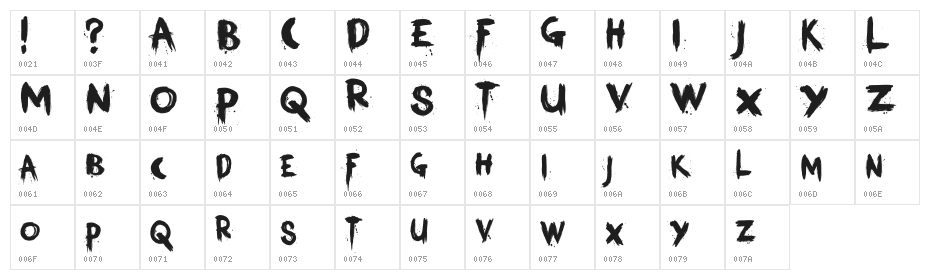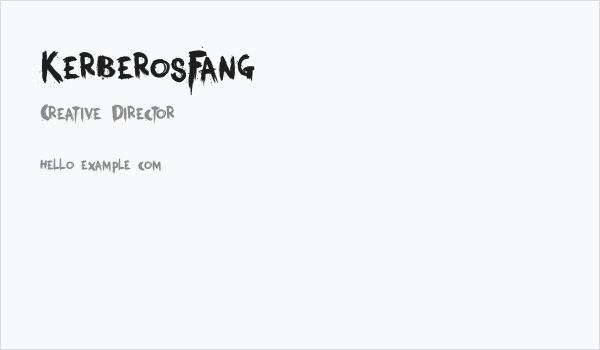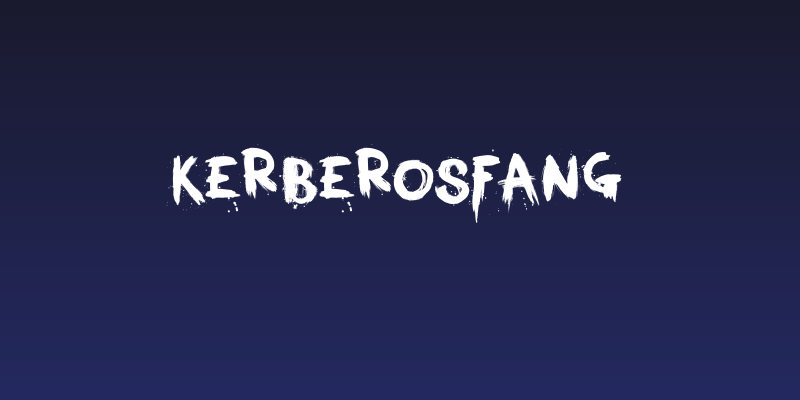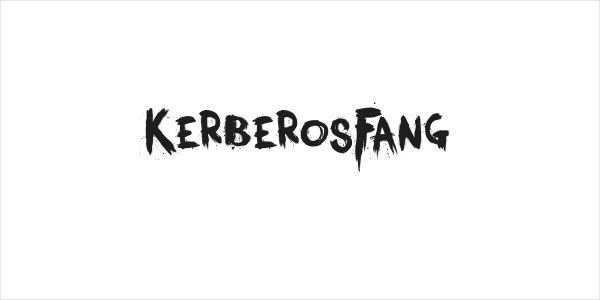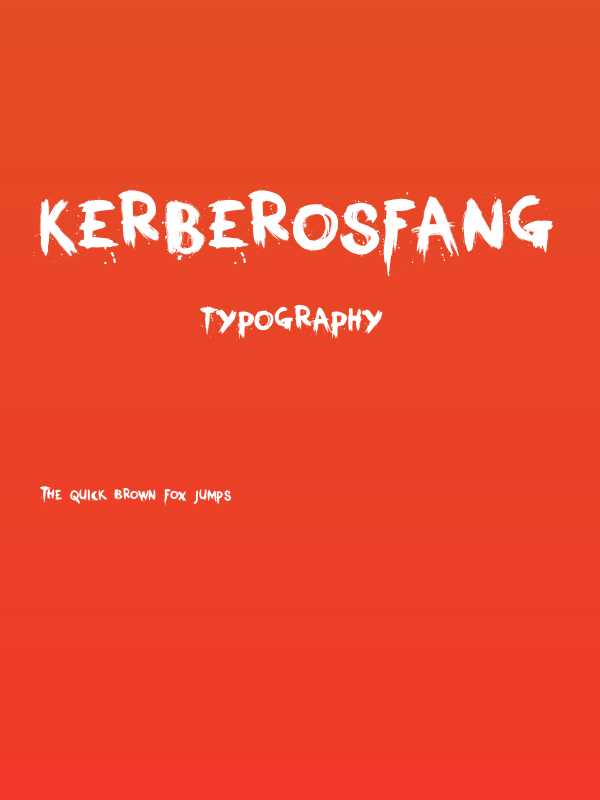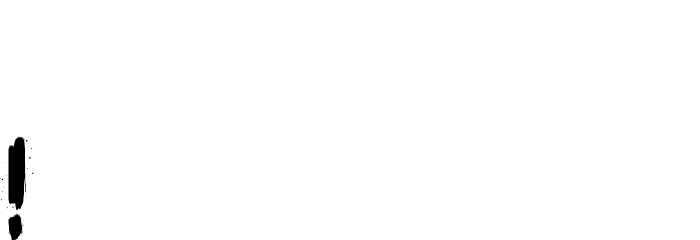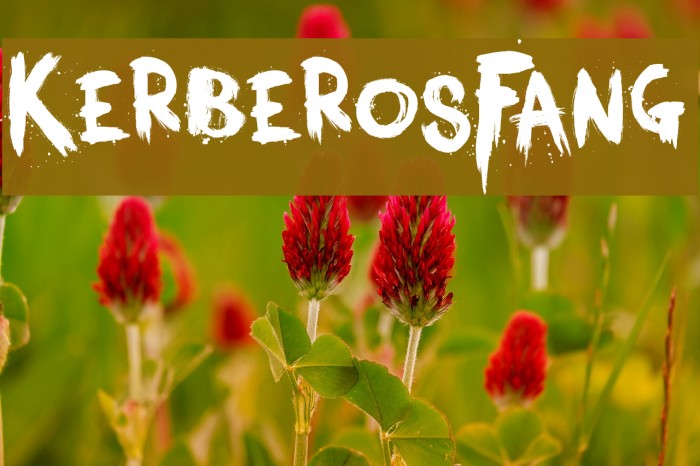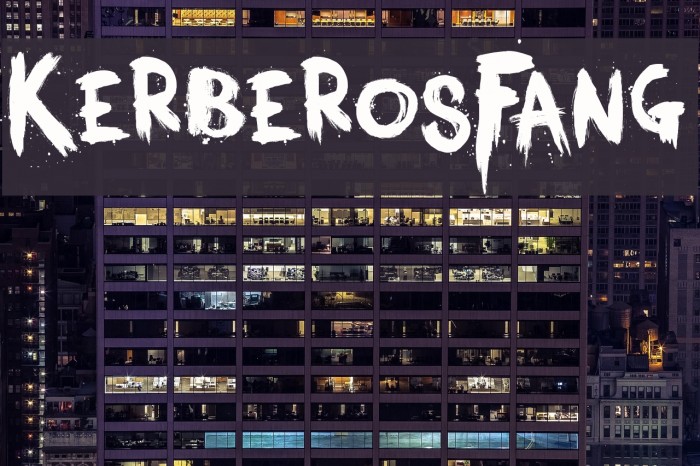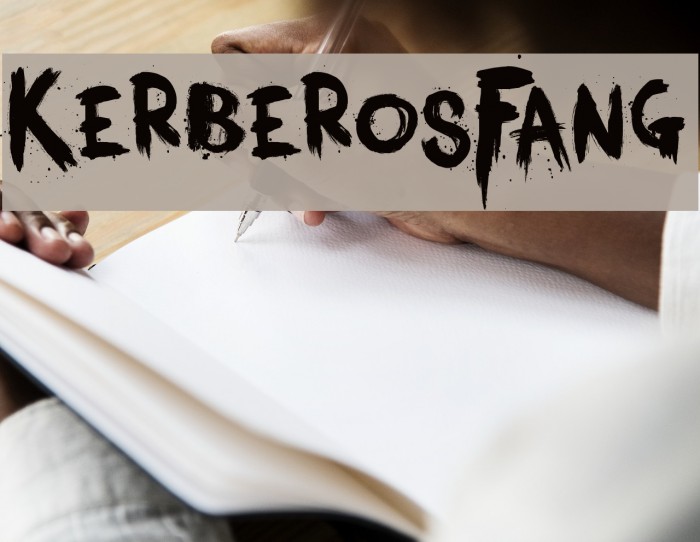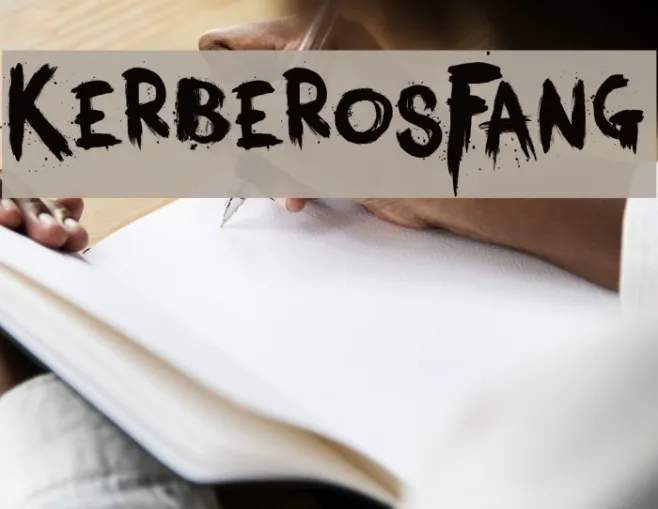
KerberosFang Font
KerberosFang Description
This font features a bold, brush-like appearance with a distressed and grungy texture. The characters have an irregular, hand-painted style, giving them a raw and edgy look. The strokes are thick and uneven, with splatters and rough edges that add to its rugged aesthetic. The uppercase and lowercase letters maintain a consistent style, creating a cohesive yet dynamic visual impact. This font is ideal for projects that require a strong, rebellious, or artistic vibe, making it perfect for posters, album covers, and other creative designs.
| Proposed Projects | Ideal for posters, album covers, street art designs, and edgy branding. |